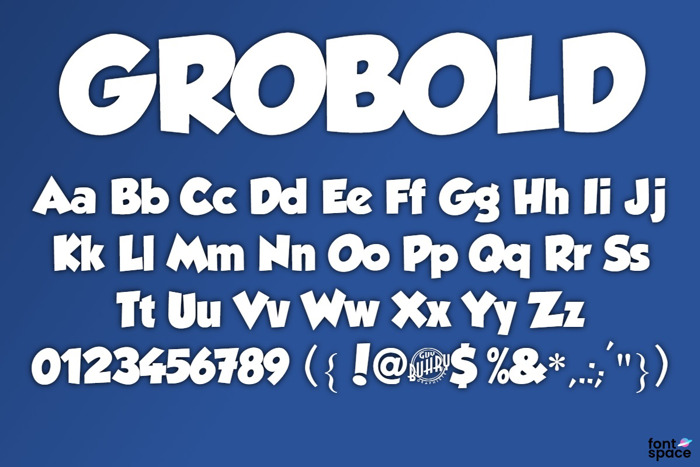
GROBOLD Font
The title of the site is composed from fonts designed by me. The first, GROBOLD is influenced by Futura, Kabel and the usual characters of classical comics, it is naturally tight and compact. I have used it for onomatopoeia in some adaptations of manga collection Sakka for Casterman . Available at Dafont for private use, full version has been used for sites, pubs, iphone games, card games, etc. ...